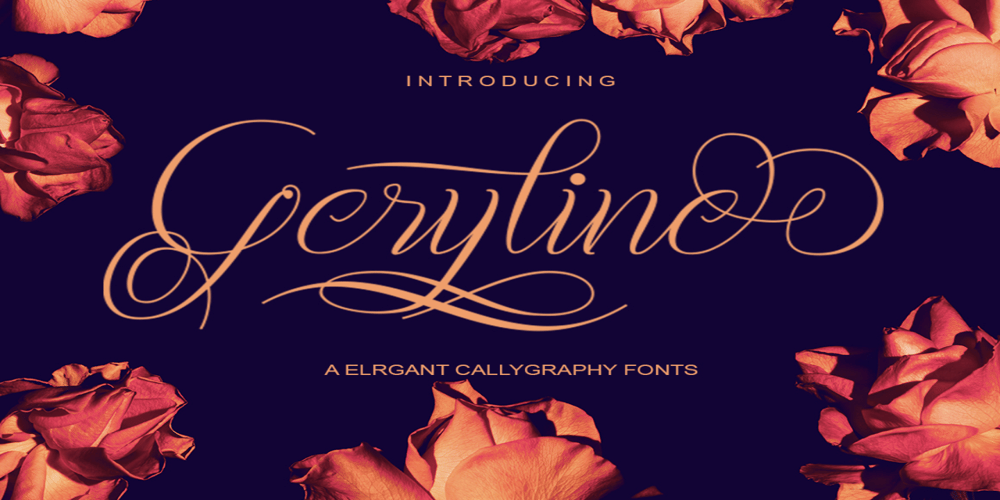
Geryline Font Family was designed by Muhammad Rayyan and published by Slex Studio. Geryline contains 1 styles and family package options. Geryline simplifies elegance into one truly outstanding handwritten font. It maintains its classy calligraphic influences while feeling contemporary and fresh. This versatility will appeal to a wide range of crafty ideas, from letterheads and titles, to stationery.This font is PUA encoded which means you can access all of the cute glyphs and swashes with ease! It also features a wealth of special features including alternate glyphs and ligatures.